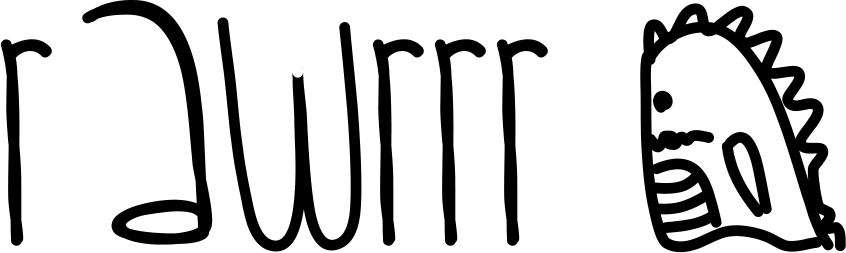
Rawrrr Font
If you want your typography to be like first-grade homework, Rawrrr is exactly what you’re looking for! It might be a little hard to read yet truly innocent and adorable, nothing very complex, but all in all, curious and fun!
This handwriting font doesn’t include both versions of each character, just the lowercase in an eccentric structure. So if you want your digital lettering, gaming graphics, posters, crafts, or else to adopt a playful childish style, download Rawrrr straight away!